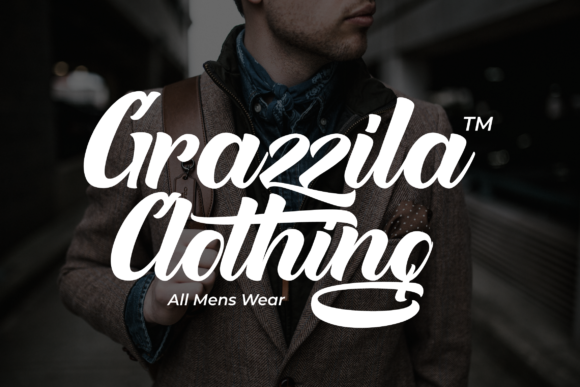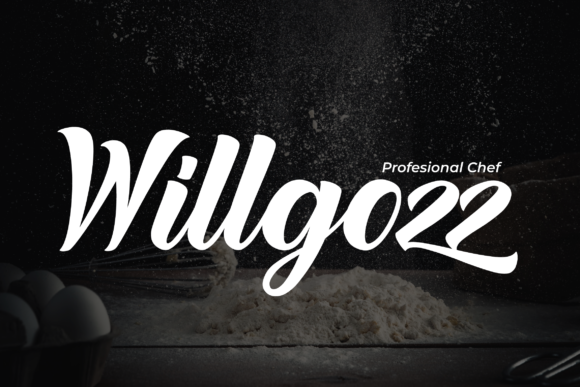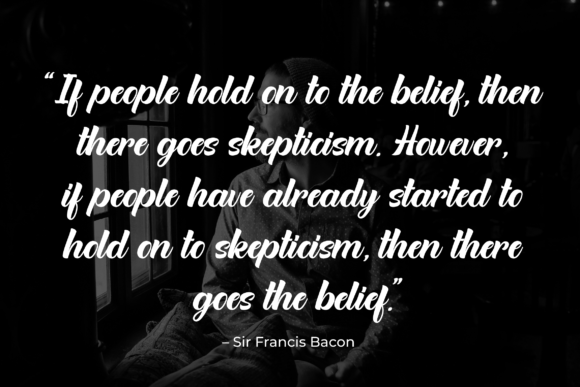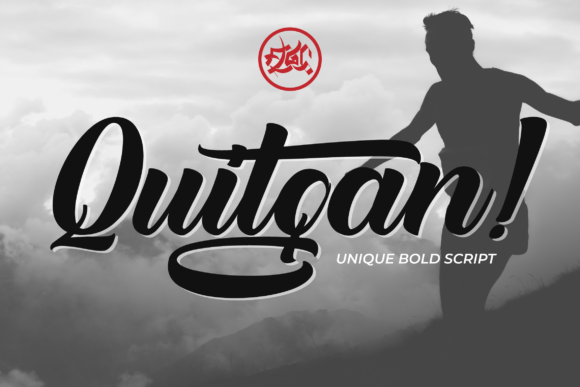
Introduction to Quitgan Font
Quitgan is an incredibly original and dynamic script featuring modern swashes.
Its unique approach to lettering will take any design idea to the next level .
Key Features of Quitgan Font